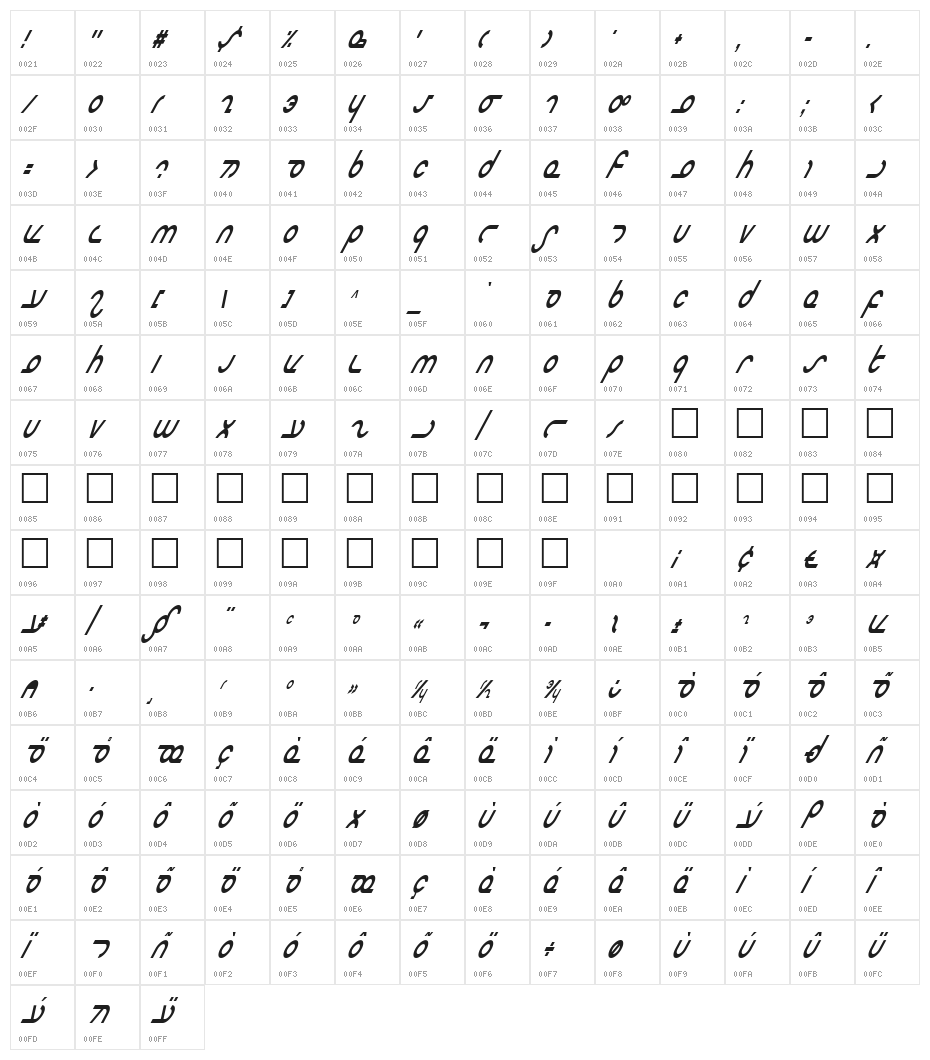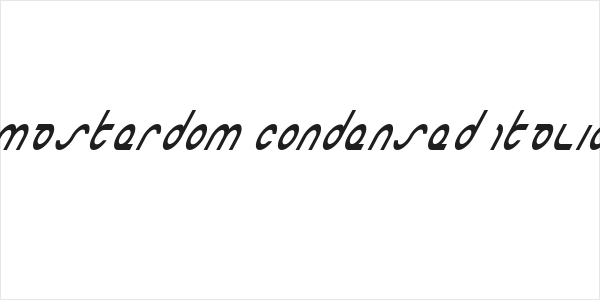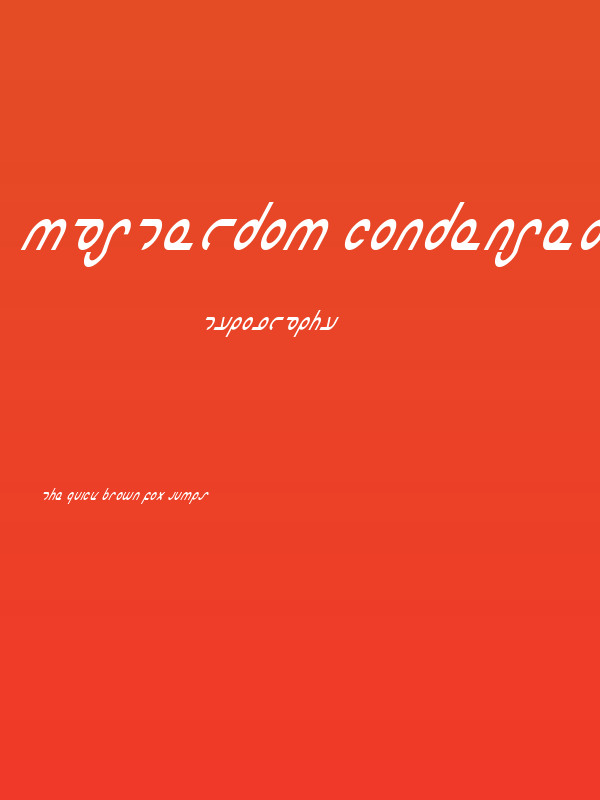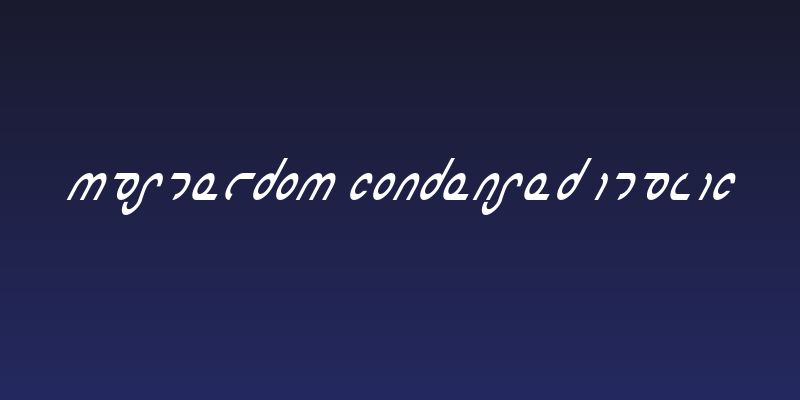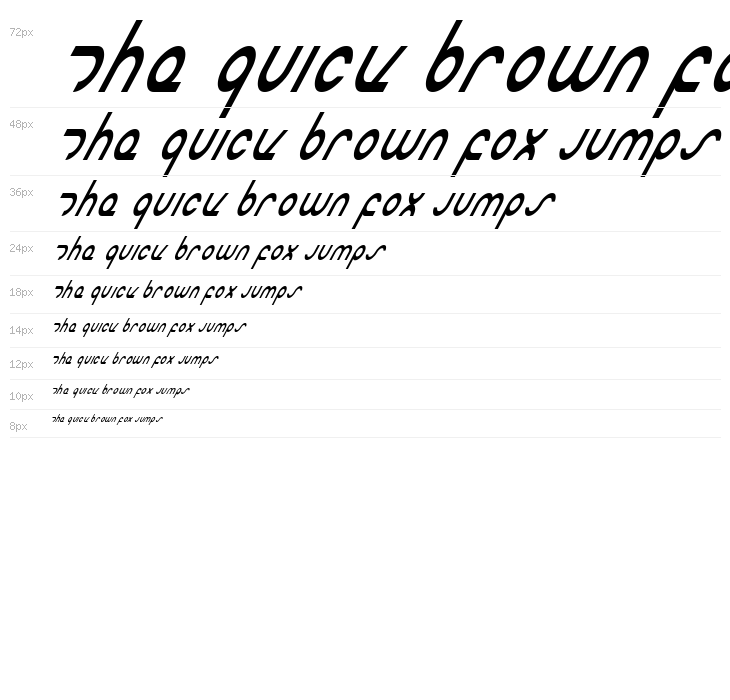
Masterdom Condensed Italic Font
Masterdom Condensed Italic Description
This font exhibits a dynamic and modern style with a condensed and italicized form. The characters are sleek and elongated, giving a sense of movement and fluidity. The strokes are bold, with a consistent thickness that maintains readability while adding a touch of elegance. The slanted orientation enhances its contemporary appeal, making it suitable for projects that require a stylish and energetic look. The spacing between characters is tight, which contributes to its compact appearance. This font is ideal for creating impactful headlines, logos, and branding materials where a modern and sophisticated touch is desired.
Proposed ProjectsIdeal for headlines, logos, branding, and advertising materials that require a modern and stylish appearance.